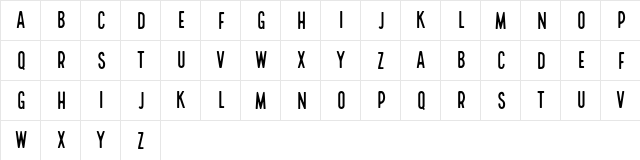
Local Brewery Sans
| Style | Sans |
| Foundry | Cultivated Mind |
| Designer | Cindy Kinash |
Design Context for Local Brewery Typeface
Local Brewery offers clean, dependable letterforms without strong stylistic allegiance, making it a practical choice for designers who need flexibility.